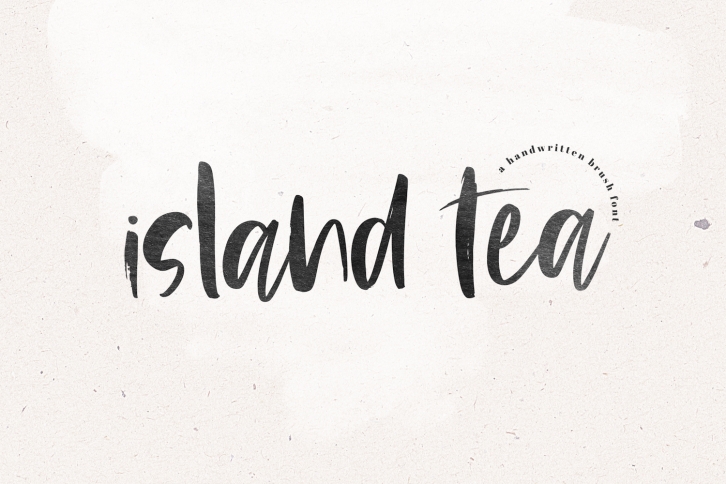
Island Tea is a gorgeous font that was realeased on January 16, 2019. The font can be used in many style contexts and design environments. Perfect for invitations, magazines, websites, logos, and more! It was designed by KA Designs and the file size is 3.5 MB. Thanks for checking out this font!